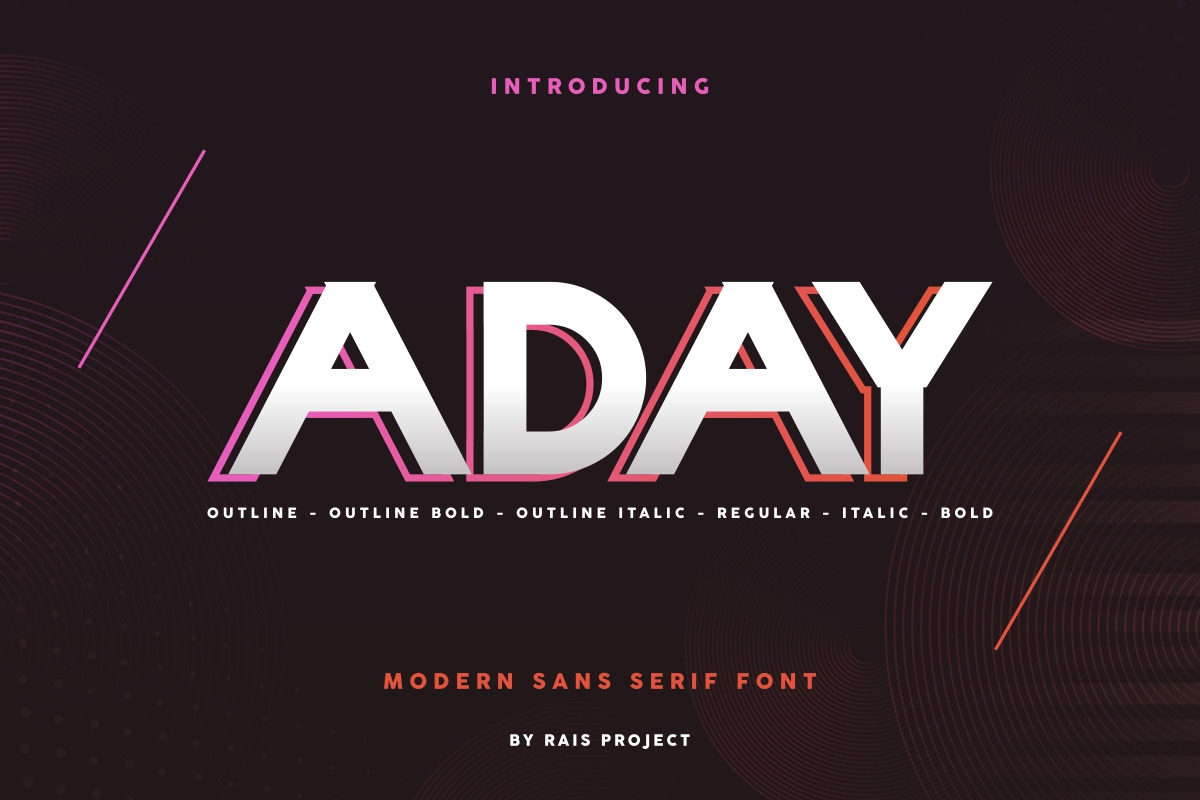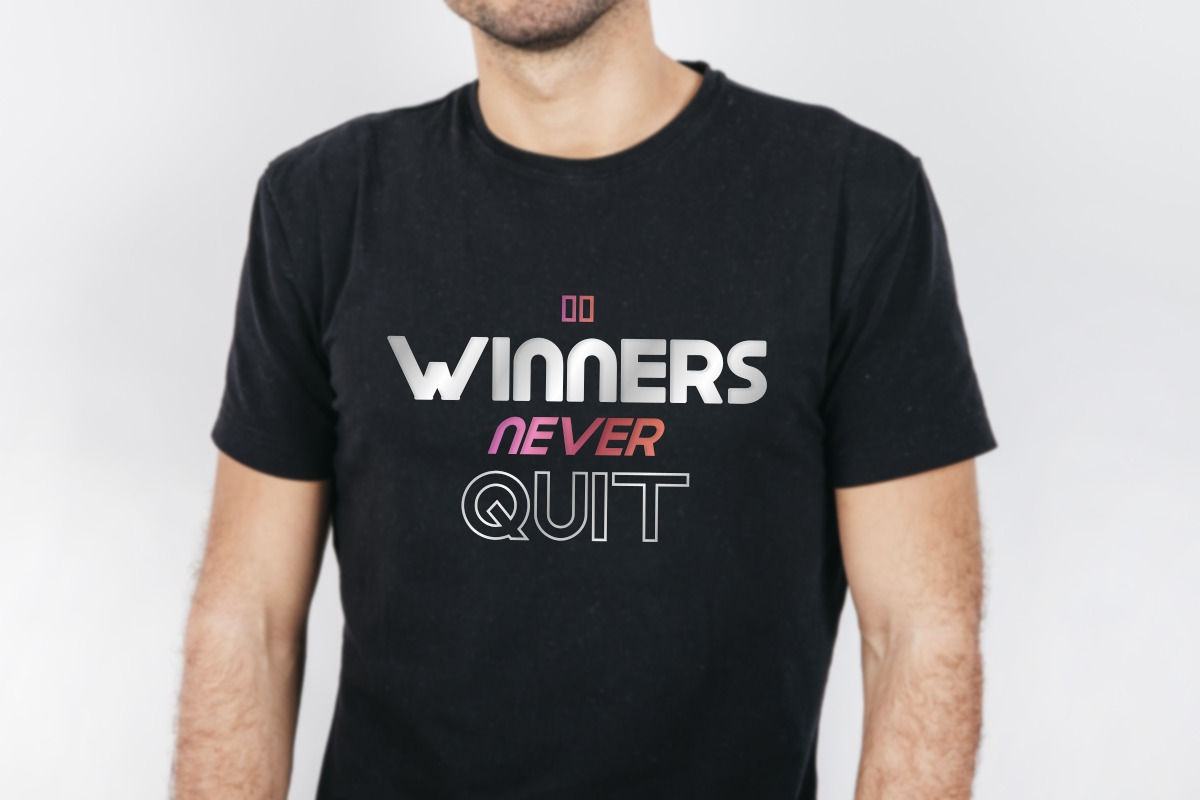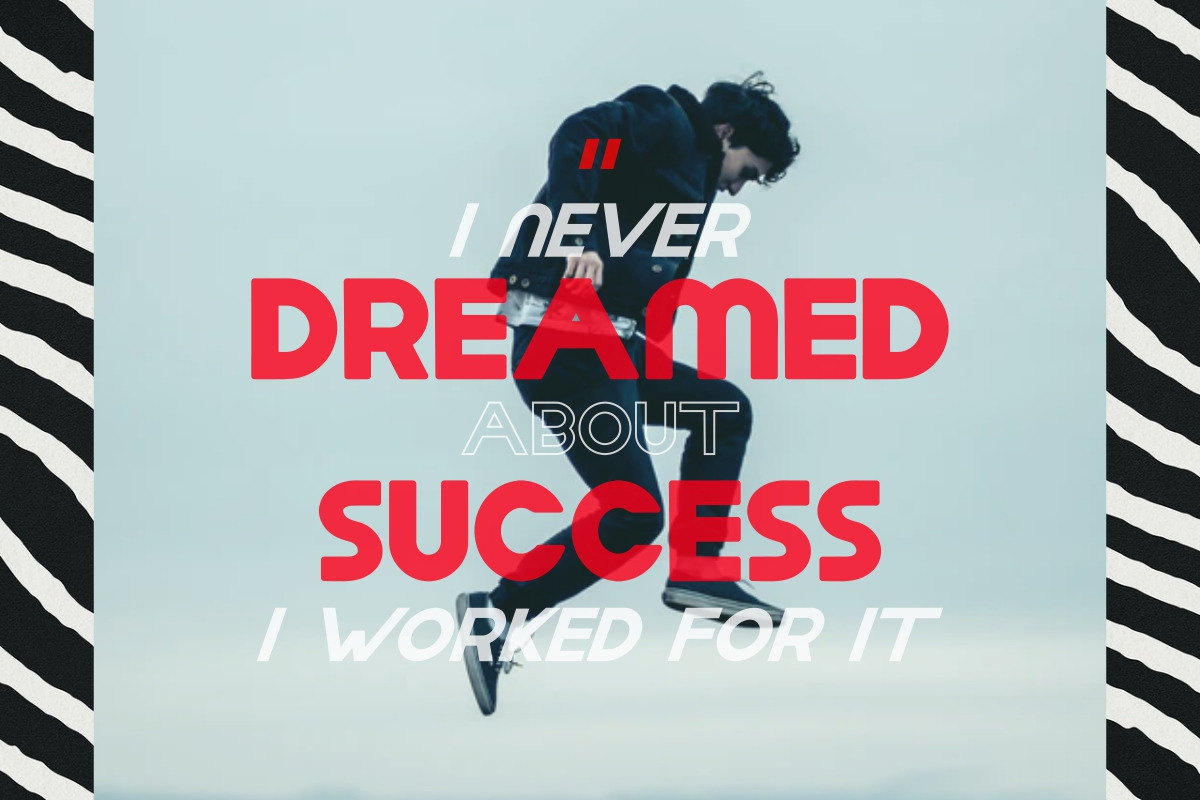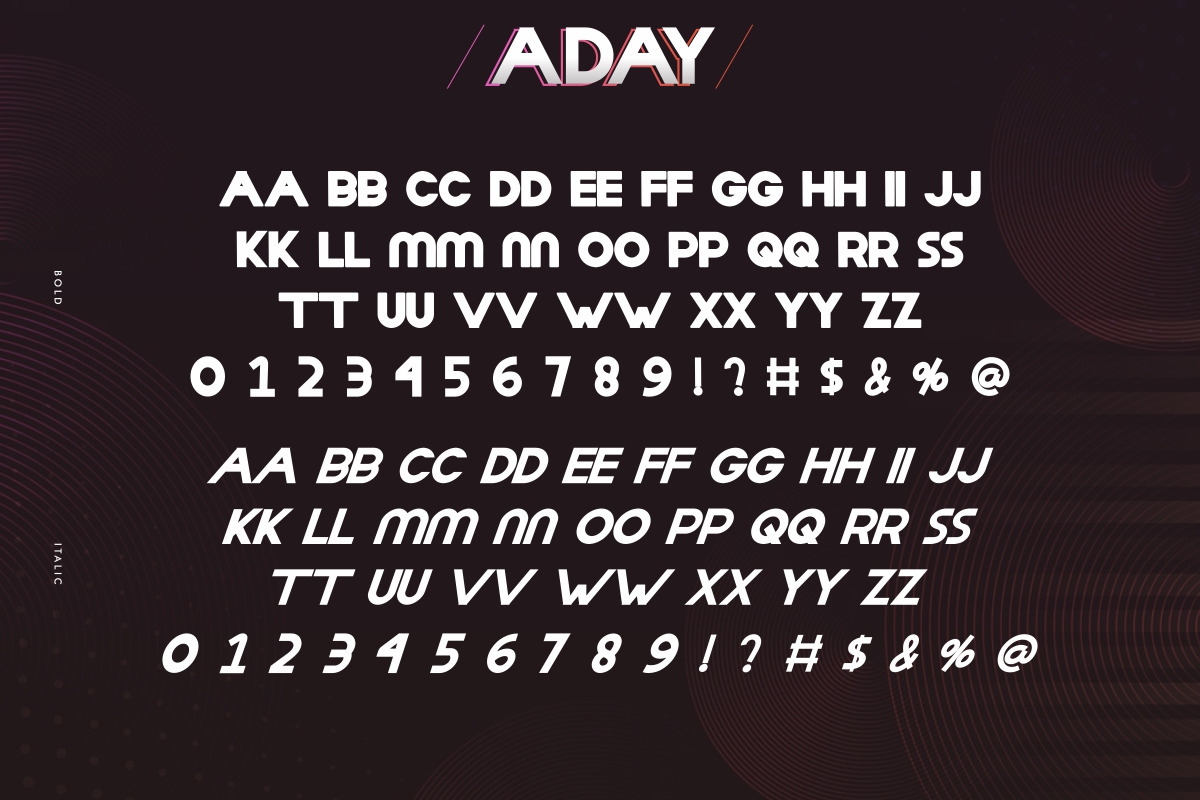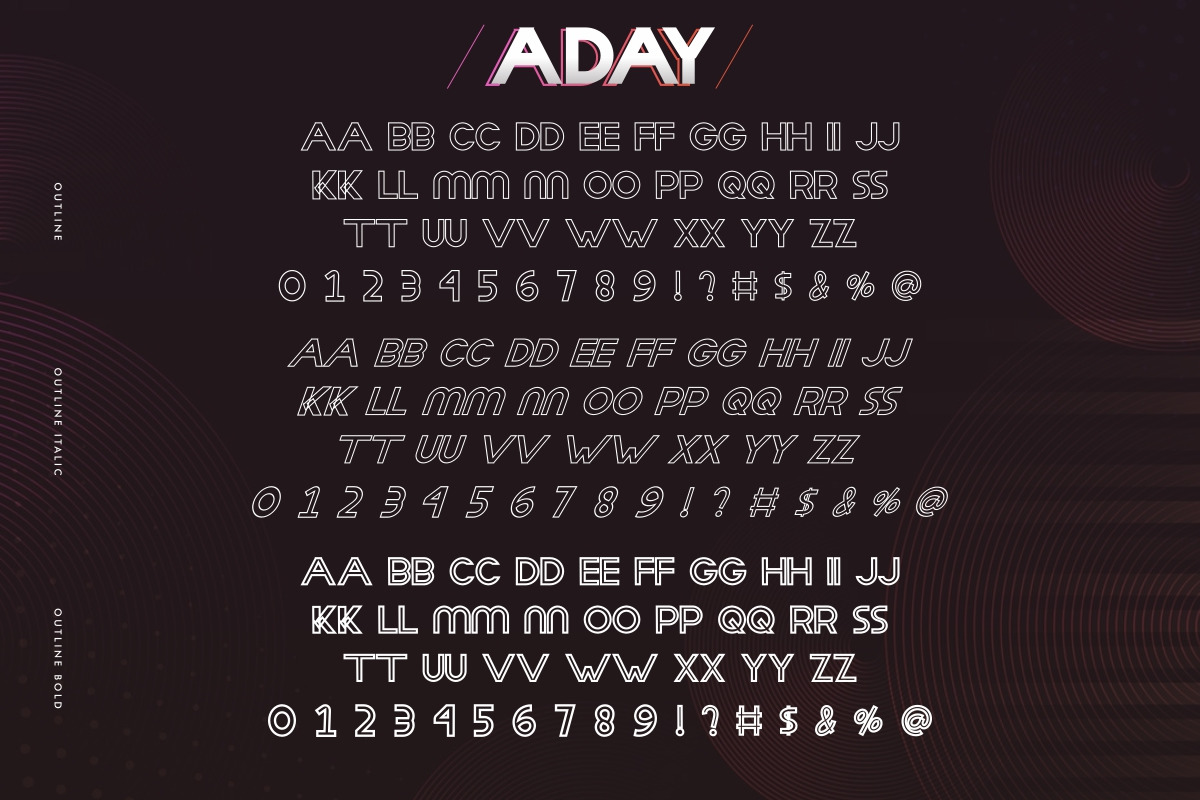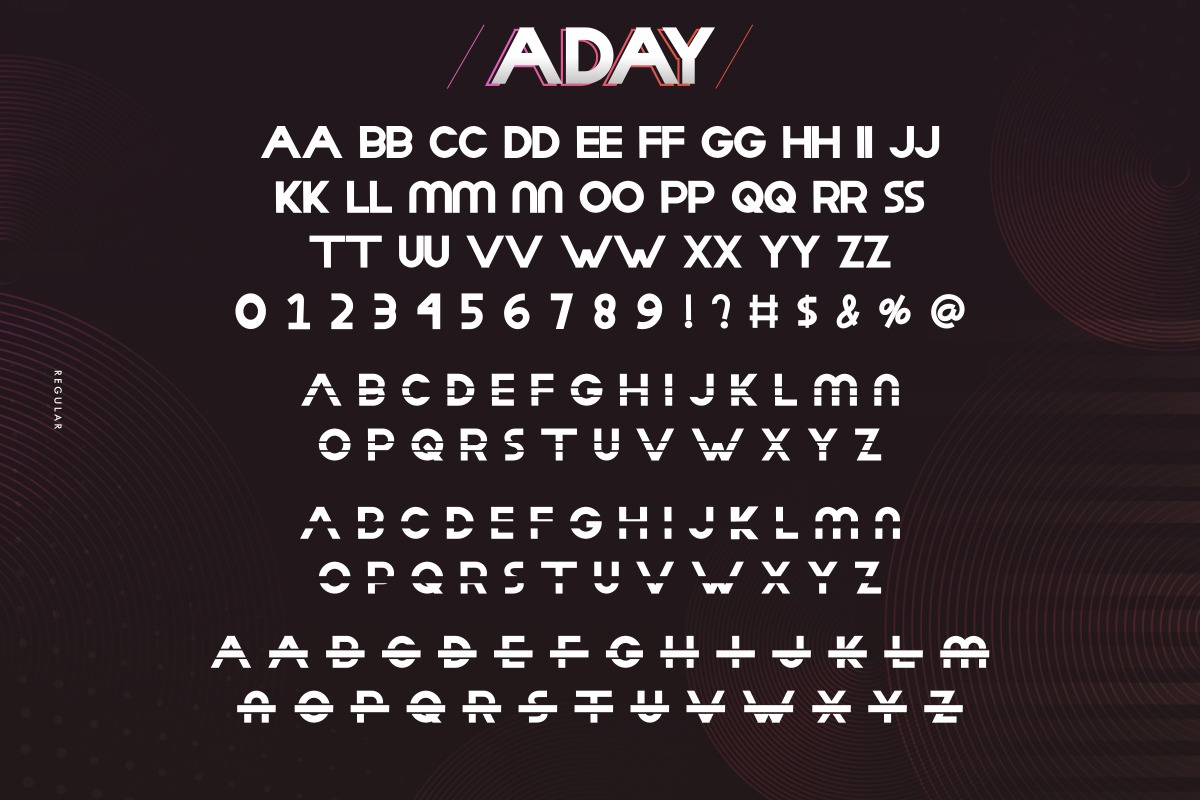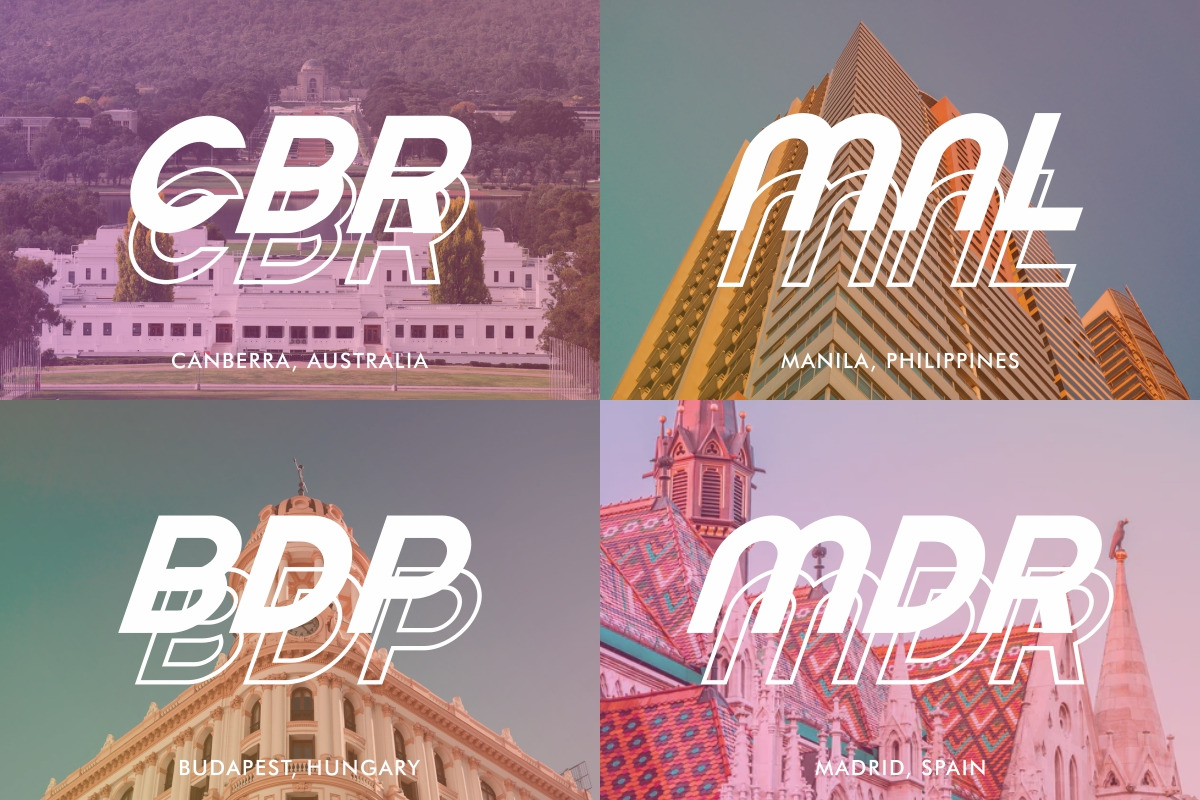
Aday Font
Aday Font is a Sans Serif display font. The font has six different styles among them Reguler, Italic, Outline, Outline Bold, Outline italic and Bold. That great for Cosmetic, Beauty, Technology, Game, Magazine, Music, Sport etc. Aday Font includes full set of gorgeous uppercase and lowercase letters ,numerals and Multi languages characters.